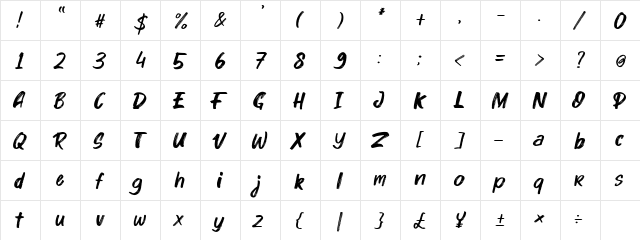
Kinder Boy Italic Font Preview
Kinder Boy Italic
Kinder Boy Italic Font Details
Design Context for Kinder Boy Typeface
Kinder Boy is a composed and adaptable typeface that performs quietly and consistently across a wide range of design contexts. Its italic angle brings a sense of urgency and motion to the letterforms.
Pro Tip: Use Kinder Boy for emphasis, pull quotes, and subheadings where its slanted energy can add rhythm to the layout.